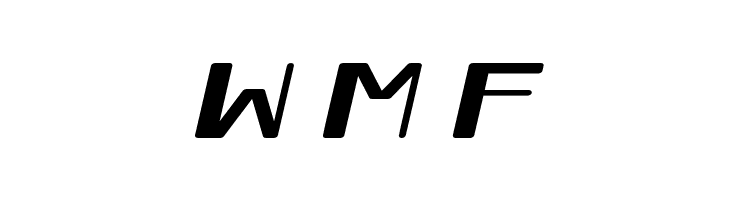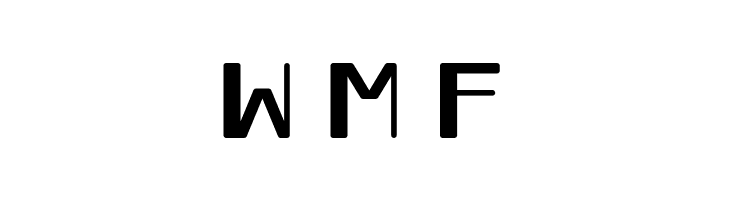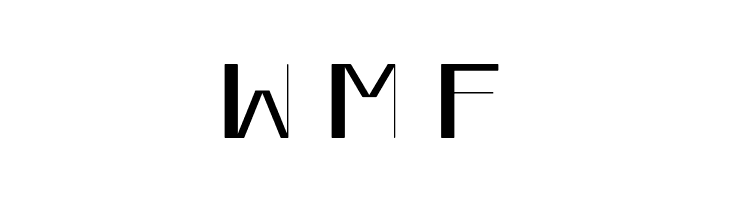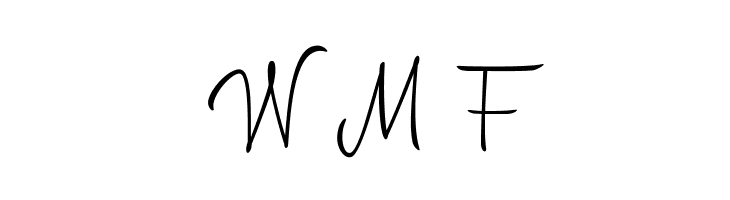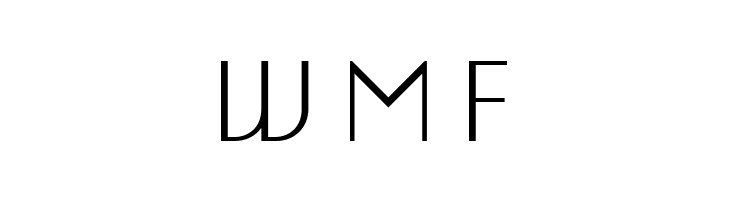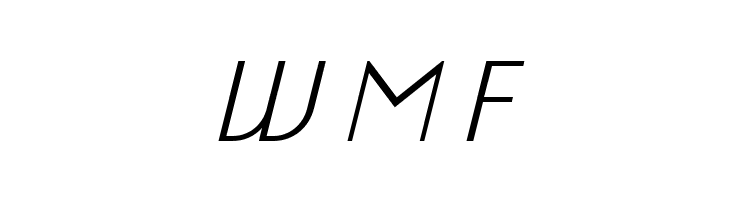
A modern, geometric, and condensed font with clean lines and uniform strokes.
A modern, condensed italic font with uniform strokes and dynamic slant.
A modern, geometric font with an expanded width and uniform stroke weight.
A modern, expanded italic font with consistent stroke weight and dynamic style.
A geometric, extra-condensed font with a modern and technical design.
A modern, italic, extra-condensed font with medium contrast and dynamic style.
A modern, geometric font with sharp angles and clean lines.
A sleek, modern italic font with sharp angles and an extra light weight.
A modern, italic font with sharp angles and a sleek, dynamic style.
A modern, geometric font with sharp, angular characters and a futuristic feel.
A modern, geometric, and condensed font with a technical appearance.
A modern, condensed, and italicized font with sharp angles and uniform strokes.
A modern, italic font with sharp angles and a dynamic style.
A geometric, modern font with bold, angular characters.
A playful, hand-drawn style font with thin, light strokes and rounded edges.
A playful, hand-drawn font with thin strokes and rounded edges.
A delicate, flowing script font with elegant, cursive letterforms.
A sleek, modern font with clean lines and a minimalist, condensed style.
A sleek, modern, and italic font with a light and airy feel.
A modern, geometric sans-serif font with uniform stroke widths and a minimalist design.
A sleek, modern, light italic font with a streamlined and elegant appearance.
A clean, modern sans-serif font with a light weight and excellent readability.
A modern, light sans-serif font with clean lines and excellent readability.
A bold, modern sans-serif font with a strong and clean appearance.
A modern, light, italic sans-serif font with clean lines and elegant slant.
A modern, light, italic sans-serif font with sleek and elegant characteristics.
A sleek, modern, and elegant light italic font with clean lines.
A modern, geometric sans-serif font with a clean and narrow design.
A sleek, modern italic font with a streamlined and dynamic appearance.
A festive, decorative font with holiday light details on each character.
Festive decorative font with stars and string lights for a holiday feel.
A playful, tall, and narrow font with rounded edges and consistent stroke width.
A tall, slender, and whimsical font with a playful style.